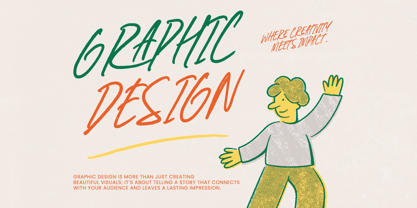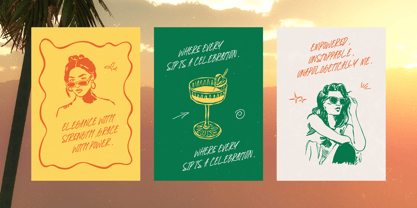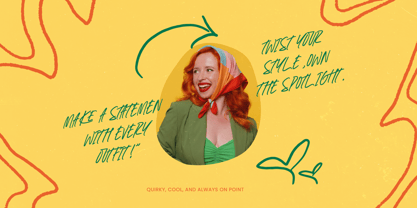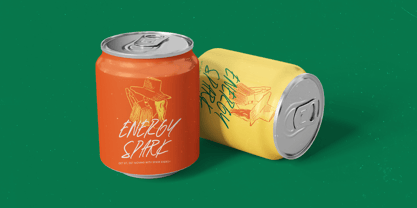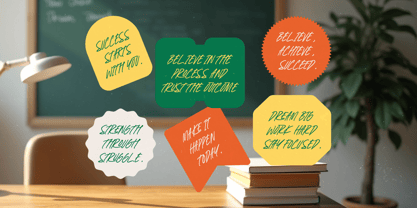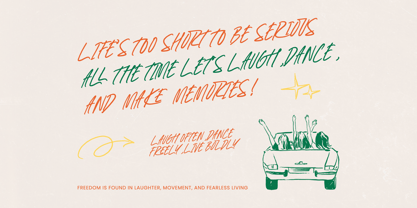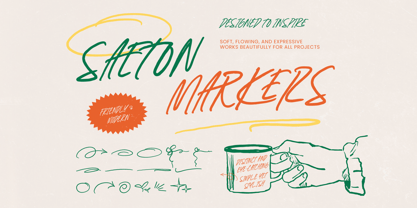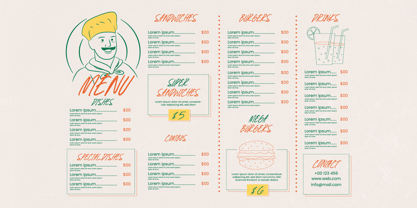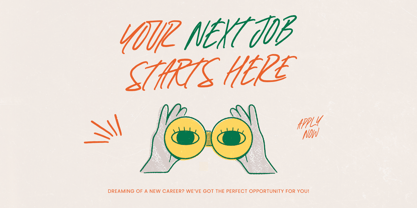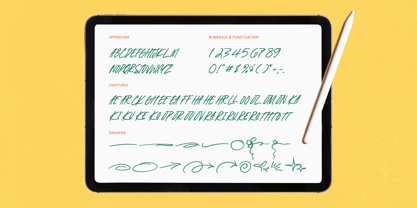
Saeton Markers
by Stylishtype Studio
The Saeton Markers Font Family was designed by Heru Utama Putra and published by Stylishtype Studio. Saeton Markers contains 2 styles and family package options. More about this family
Saeton Markers – Natural Handwritten. This authentic marker font captures the organic flow of hand-lettered ink, offering a modern street-style vibe that is both edgy and professional. Designed to provide a truly bespoke appearance, Saeton Markers – Natural Handwritten features a wide array of ligatures and alternates that ensure every word looks unique and spontaneous. In today’s interconnected design landscape, global accessibility is essential for any professional typeface. With its extensive multilingual support, Saeton Markers – Natural Handwritten adapts seamlessly across global markets, making it incredibly versatile for international projects. This comprehensive glyph coverage allows designers to maintain a consistent brand identity across different languages without sacrificing the expressive personality that Saeton Markers – Natural Handwritten brings to the table.